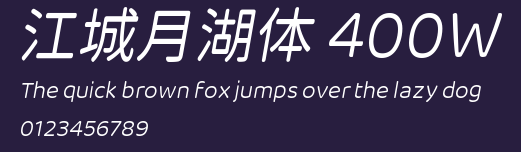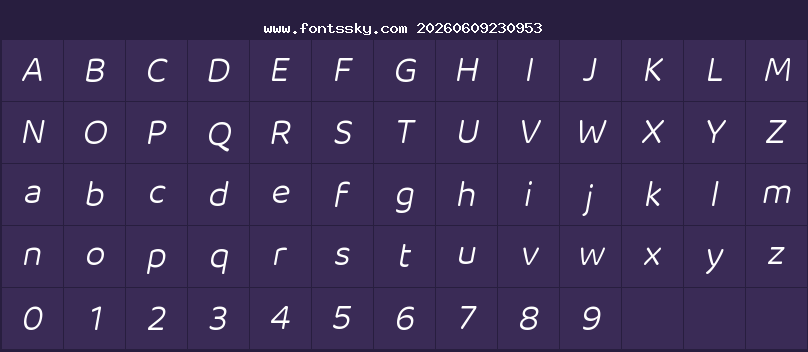
江城月湖体 400W Preview
• Font Name: 江城月湖体 400W
• Font ID: JiangChengYueHuTi 400W:Version 2.0
• Full Font Name: 江城月湖体 400W
• Version: Version 2.0
• PostScript Name: JiangChengYueHuTi400W
• Character Count: 44948
• Designer: LiuPeng
About 江城月湖体 400W.ttf
江城月湖体 400W.ttf is a modern, elegant sans-serif font designed for ultimate readability and visual harmony. Perfect for branding, headlines, web design, and print materials.